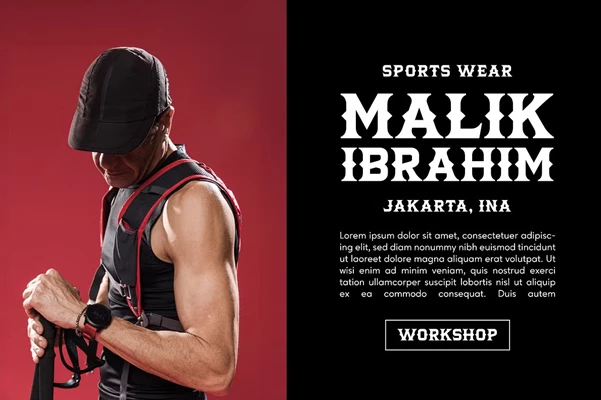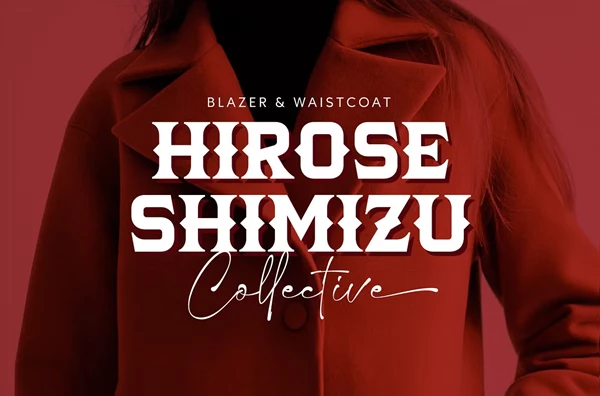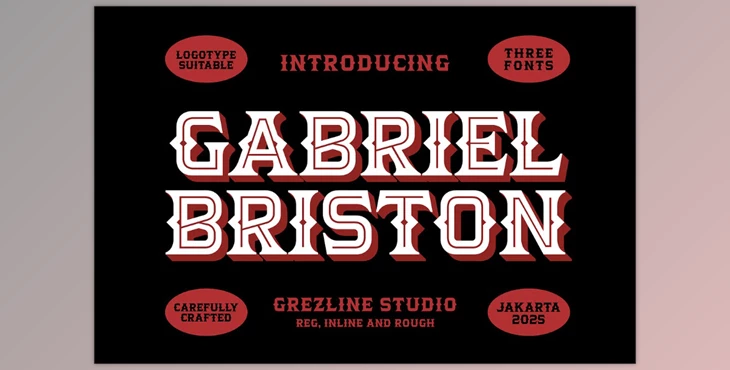
Gabriel Briston Font:
Gabriel Briston is a high-impact, sporty display typeface that elevates visual design. It was made for poster and package logos, as well as places that need things to be more dynamic and grab attention. Furthermore, Gabriel Briston’s brace design makes him contemporary and suitable for many design scenarios, plastering a modern edge while maintaining boldness.
Some great features of Gabriel Briston Font:
- Three Distinct Styles: Allows choosing specific design preferences.
- Multilingual support: Makes sure that global projects can be accommodated.